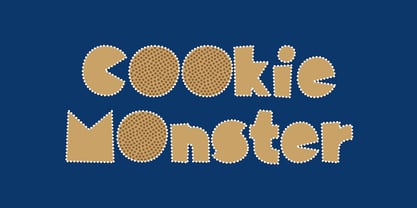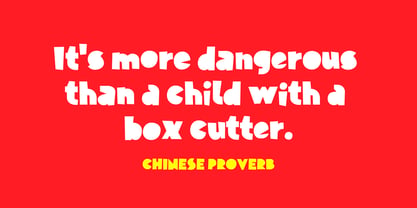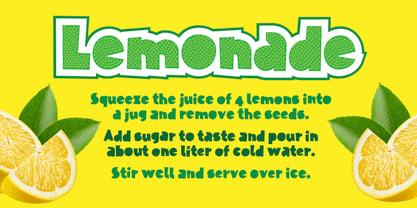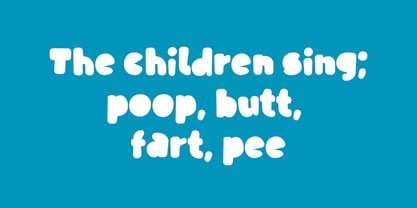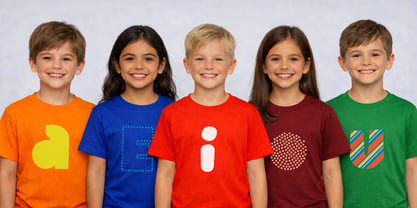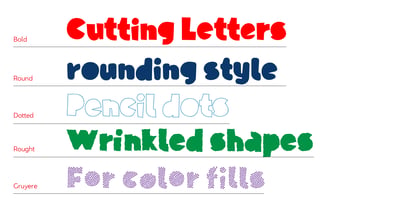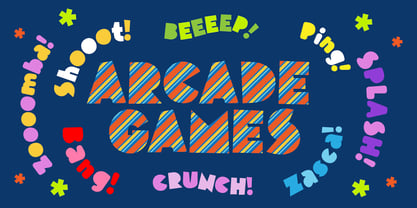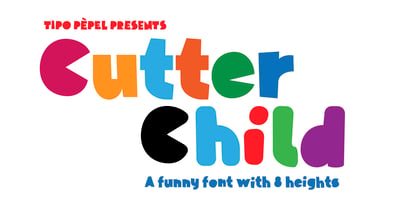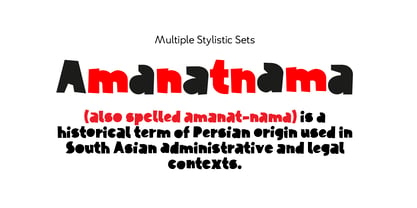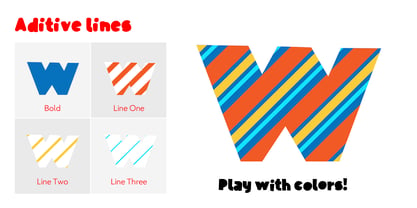
Cutter Child
by Tipo Pèpel
The Cutter Child Font Family was designed by Josep Patau Bellart and published by Tipo Pèpel. Cutter Child contains 8 styles and family package options. More about this family
CutterChild is a display typeface inspired by letters cut with a utility knife, crafted exclusively from their outer silhouettes and intentionally designed without internal counters. This results in a bold, compact, and instantly recognizable presence, reminiscent of paper shapes ready to be assembled and played with. Its fresh, playful, and slightly irregular character makes it perfect for children’s projects, educational publishing, fun packaging, bold branding, and vibrant Arcade-inspired visual worlds. CutterChild is more than just a single font; it is an expanded typographic system. Alongside the main solid style, it includes complementary versions that facilitate rich graphic effects within the same visual language. The additive lines version supports up to four different colors layered together, enabling dynamic multicolor compositions full of rhythm and depth. Meanwhile, the dotted version constructs each letterform from carefully arranged points, adding texture, movement, and a more experimental graphic feel. Additionally, a rounded variant called “Round” softens the shapes with smoother, friendlier contours, making it ideal for even more approachable and child-oriented applications. Each character also features multiple Stylistic Sets, providing alternative forms that introduce variation, spontaneity, and uniqueness to every word, transforming any composition into an energetic and customizable visual statement.